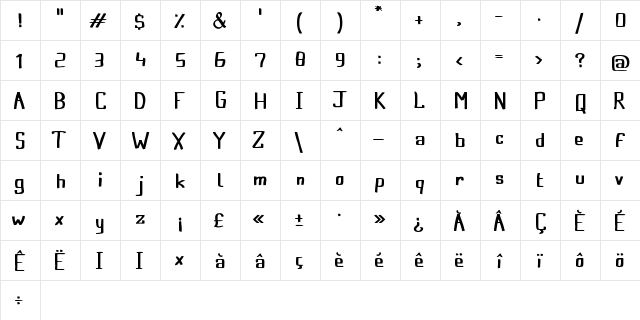
FroggyPrincess Regular Font Preview
FroggyPrincess Regular
FroggyPrincess Regular Font Details
| Foundry | Fabien DESPINOY |
| Designer | Jeanne & Fabien DESPINOY |
Design Context for FroggyPrincess Typeface
FroggyPrincess offers clean, dependable letterforms without strong stylistic allegiance, making it a practical choice for designers who need flexibility.